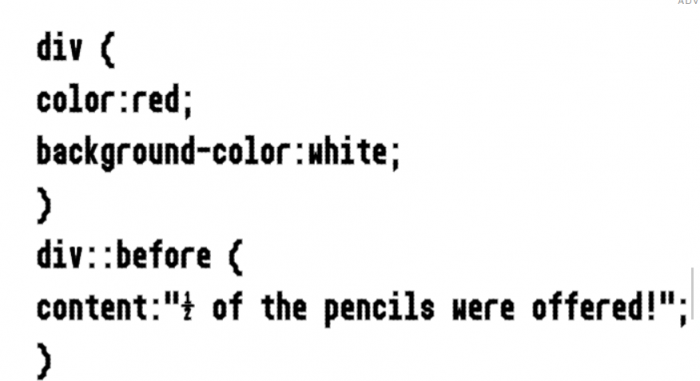
• A halfwidth monospaced font that has 3 bricks wide characters (4 bricks wide for Drawing glyphs). Supports Latin, Greek, Cyrillic and Semigraphics
This font intends to cover as much LGC it can. Glyphs from the first 5 unicode blocks (Minus the small n followed by an apostrophe) are all included
This font will be the first halfwidth fonstruction I've ever made, the rest were either proportional or fullwidth monospace fonts
Redesigned the less/greater than signs
Greek language to come in the font, as well.
The digraph glyphs like DZ and NJ will also be supported albeit much more compressed
Latin Extended B has been almost completed.
Sample of this font
Latin will be added first, followed by Greek and Cyrillic
"W" glyph will be redesigned to distinguish it from the Turned M
Has been changed to a better ones (Old ones is the turned M glyph). Omega has been tweaked a bit to have more roundnes
Managed to make a proper small M that can be distinguished from Small Capital M (And the upcoming small cyrillic M)
Epigraphic Archaic M (Representing Manius) has been added as well but it is extremely condensed from 9x7 to 3x7. Here's how it looks
Almost all Latin glyphs have been added
With the exception of Latin Extended F, everything in Latin have been added, including Unicode 16 additions.
Coverage of Greek is starting
Cyrillic is under development
This font also plans to support some of the glyphs from Symbols for Legacy Computing Supplement unicode block.
You should probably re-check some of the characters in the Symbols for Legacy Computing block as the right blocks and the vertical half shades don't meet at the top of the others…
And also the bottom of the right aligned blocks in the same Unicode block that I mentioned.
Done. Currently implementing Cyrillic in the font
Other additions in Diacritical Marks:
- Combining latin vowel letters have been added
- The corresponding cyrillic variants have been added too
Support for Symbols for Legacy Computing Supplement block will be added
Octants, separated sextants and separated quadrants have been too added.